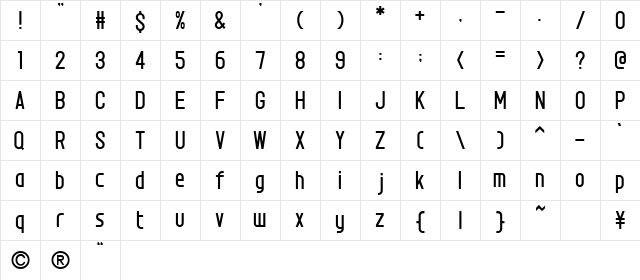
71mksd2 Am
71mksd2 offers clean, dependable letterforms without strong stylistic allegiance, making it a practical choice for designers who need flexibility.